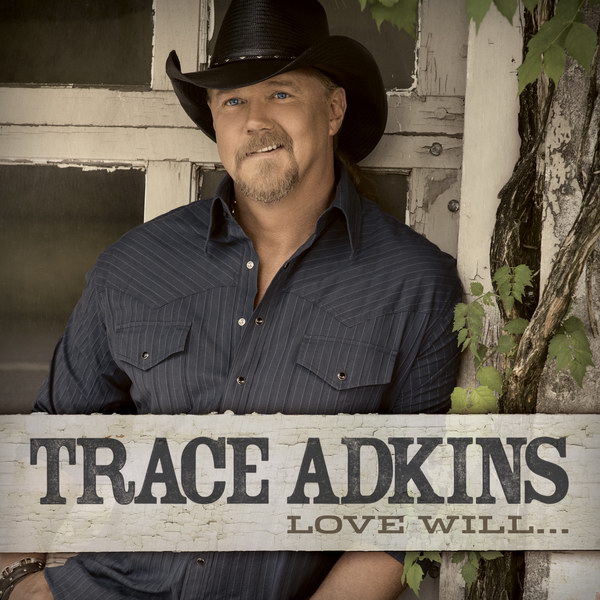
Love Will Font
Country*Love Will…*is the eleventh studio album by Trace Adkins. It features a mix of romantic ballads and upbeat tracks, showcasing Adkins' signature deep and powerful vocals.
It is likely that the font used for the title of the album is Dispatch Ext Bold, a slab serif font created by Cyrus Highsmith in 1999. Similarly, the font used for the artist's name is probably Rosewood Std fill. Both of these fonts are available for purchase and you can find more information about them here and here respectively.